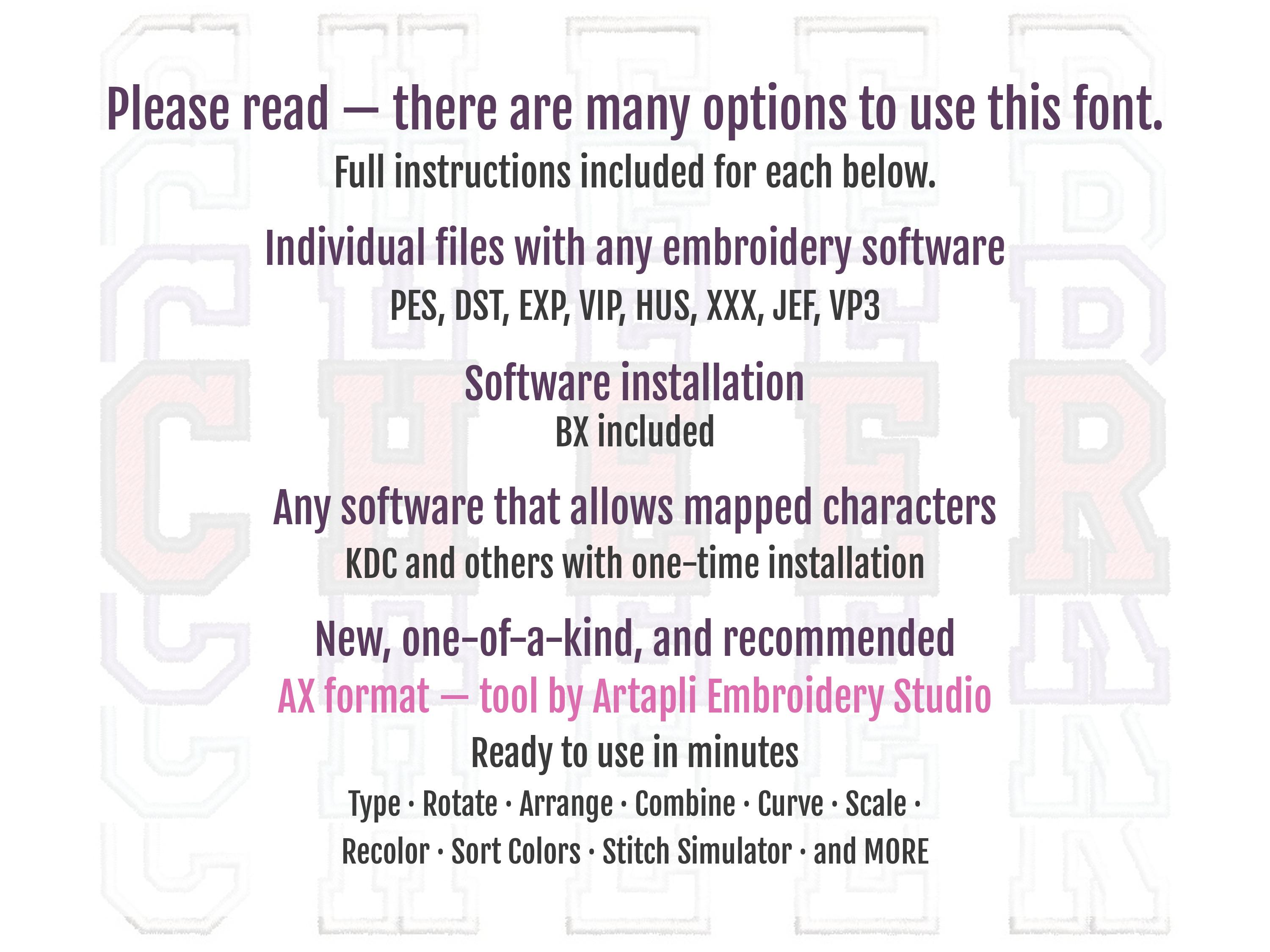
Stacked Font Athletic Sport, fill stitch and outline alphabet letters, boy trend Font fabulous machine embroidery designs many sizes BX included
The whole alphabet
A-Z uppercase, numbers 0-9 and special marks & /